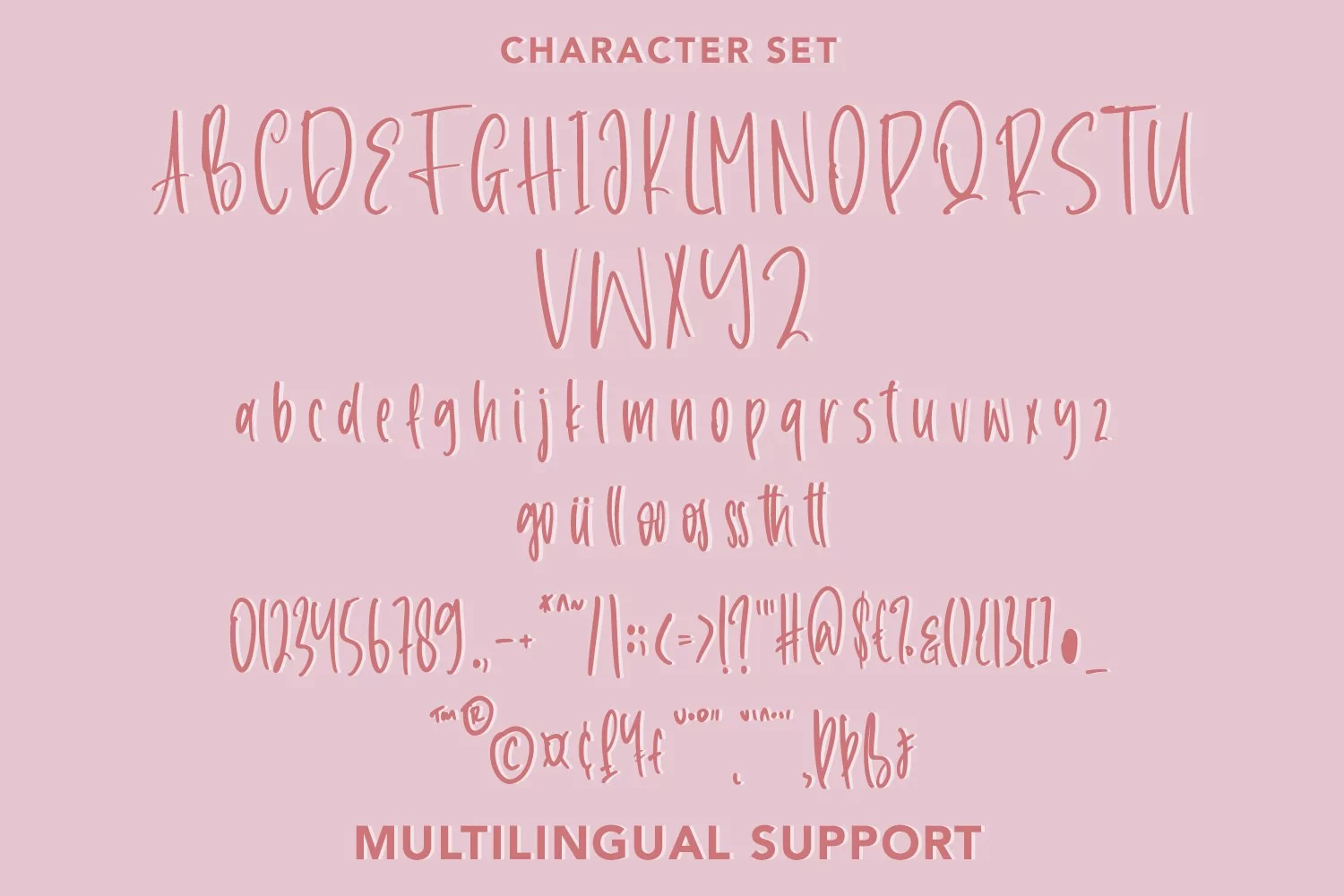
Coauthor - Cute Handletter Font
Coauthor - Cute Handletter Font that contain lowercase, uppercase, symbol, and also support multi language. There’s a lot ligatures in this font. This Font also comes with ligatures, alternates and many more. this font suitable for fashion, branding, catalog and other design what you want.